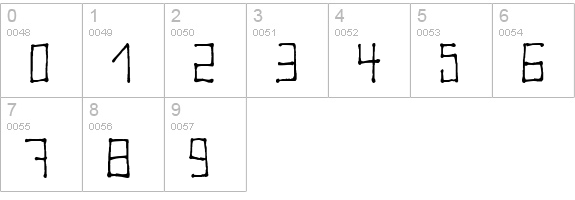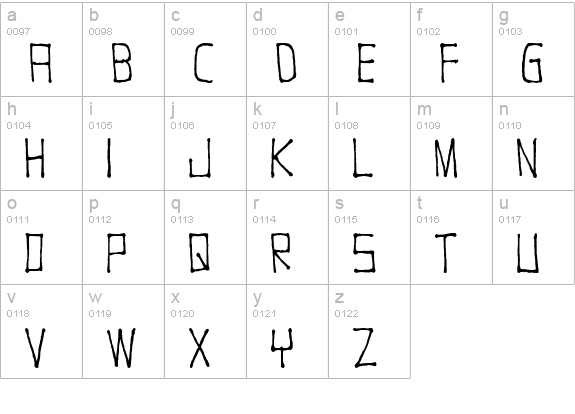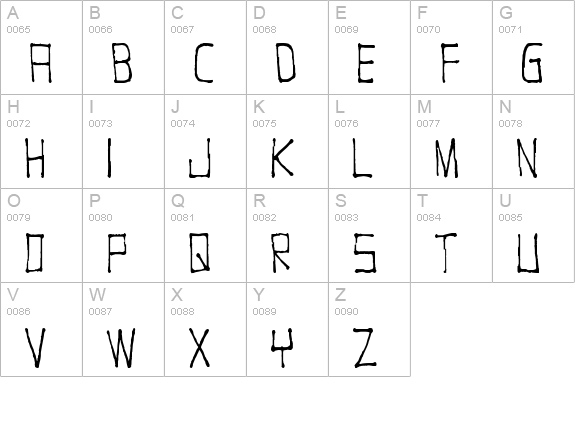
Nugacity Font Details
Introducing Nugacity font, a stunning and versatile typeface that embodies elegance and sophistication. With its unique blend of modern and classic design elements, Nugacity font is perfect for a wide range of projects, from branding to packaging to editorial designs. Its sleek lines and balanced proportions give any text a polished and professional look. What makes Nugacity font even more appealing is that it is available for free download at FontsMarket.com. Yes, you read that right - this high-quality font can be yours at no cost, allowing you to elevate your designs without breaking the bank. Don't miss out on the opportunity to add Nugacity font to your collection and take your projects to the next level. Download now and let your creativity shine with this exceptional typeface.